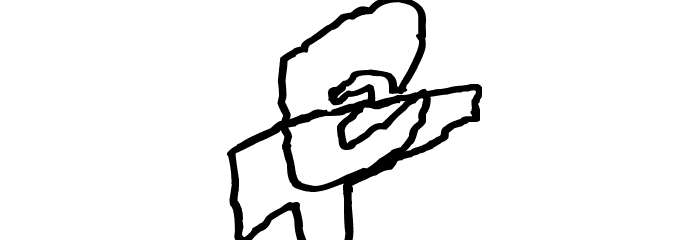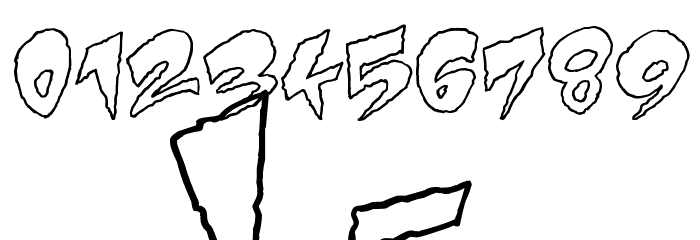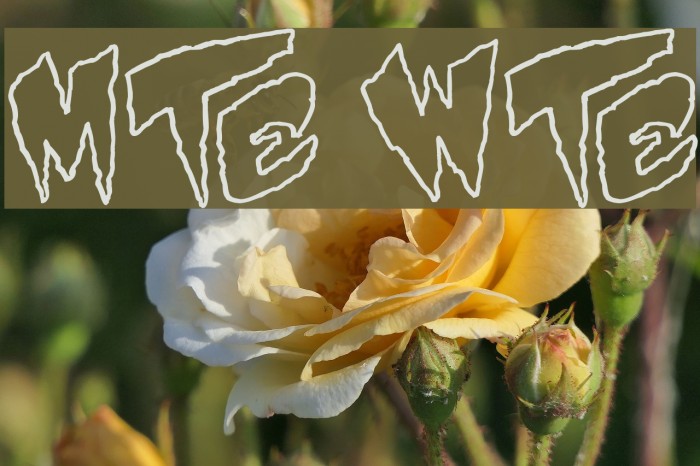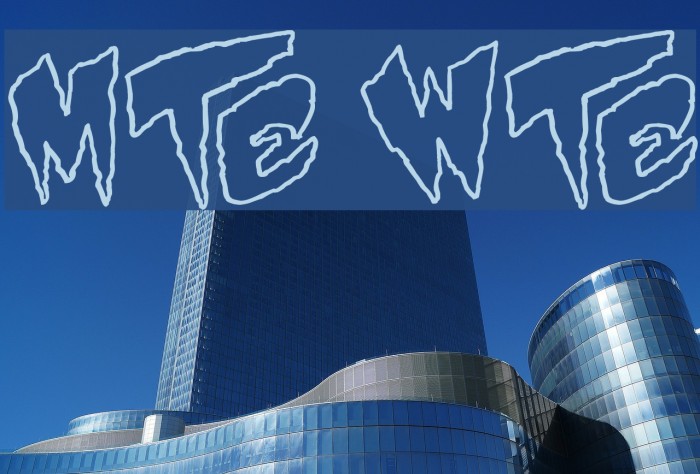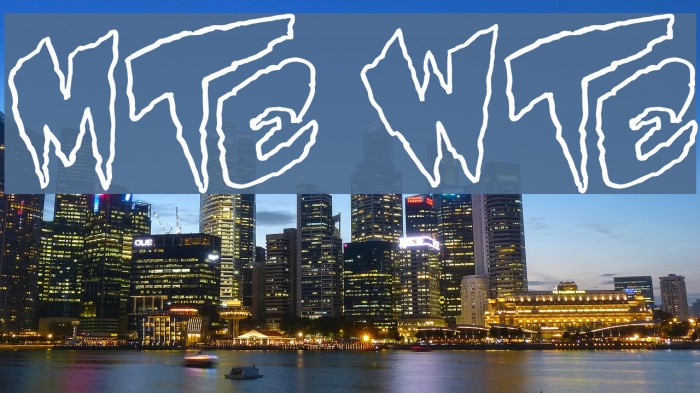
Mystery White Font
This font features a bold and dynamic style with a hand-drawn appearance. The characters have a rugged, jagged edge that gives them a sense of movement and energy. The uppercase letters are particularly striking, with each character maintaining a consistent height and width, yet exhibiting unique, irregular outlines. The numbers and special characters follow the same design principles, ensuring a cohesive look across all elements. This font's distinctive style makes it stand out, ideal for projects that require a bold statement.
A bold, hand-drawn font with jagged, energetic outlines.
- Proposed Projects: Perfect for posters, album covers, graffiti art, and any project needing a bold, artistic touch.